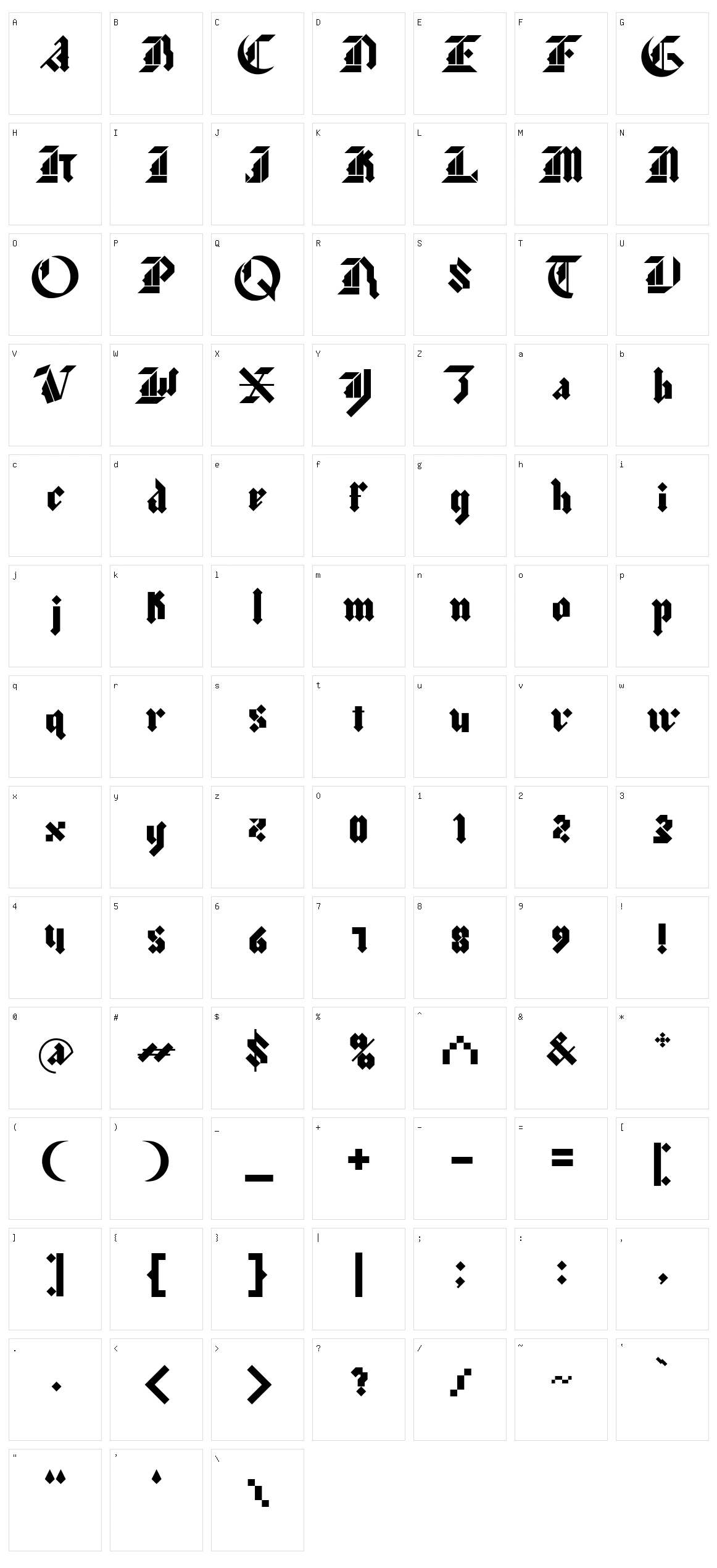
The free font Morgan is carefully designed by Sigit Nur Wicaksono, showcasing a thoughtful balance of creativity and usability and belongs to the Gothic font family. When you download the ZIP file, it contains only 20.42 KB of font files, making it lightweight and quick to download. Please review the license details below to understand permitted usage and distribution rights. If license information is not available, we recommend using this font for personal projects only or contacting the author directly for commercial usage permissions.